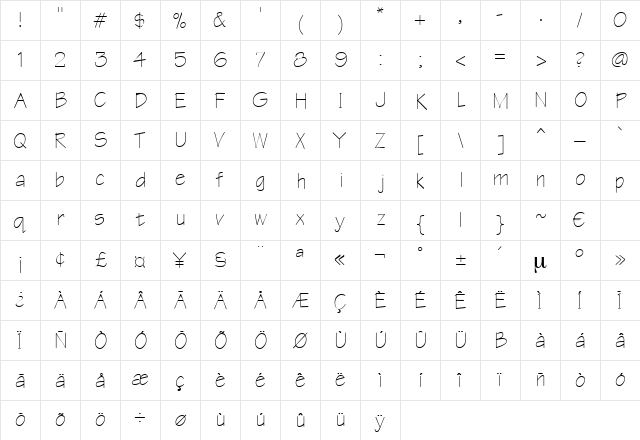
Rapunzel Regular
Design Context for Rapunzel Typeface
Rapunzel takes a measured approach to typography — its balanced proportions and neutral character make it a reliable workhorse for both digital and print work.